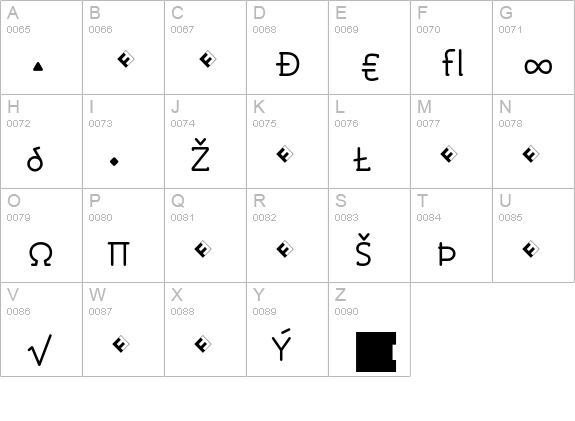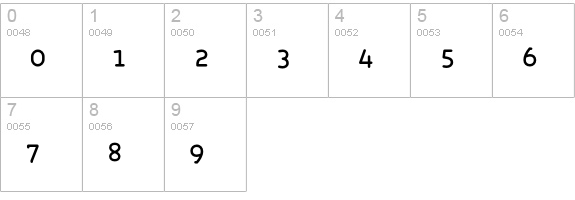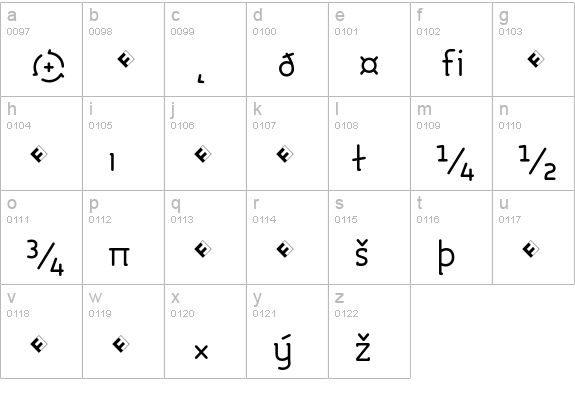
Roice-RegularExpert Font Details
The Roice-RegularExpert font is a versatile and elegant typeface that exudes sophistication and professionalism. Its well-balanced proportions and clean lines make it ideal for a wide range of design projects, from branding to editorial layouts. This font offers a sense of timeless elegance that is sure to elevate your work to the next level. What's even better is that the Roice-RegularExpert font is available for free download at FontsMarket.com. This means you can easily access this high-quality typeface and use it in your projects without any cost. Don't miss out on the opportunity to enhance your designs with this beautiful and versatile font - download Roice-RegularExpert today from FontsMarket.com!